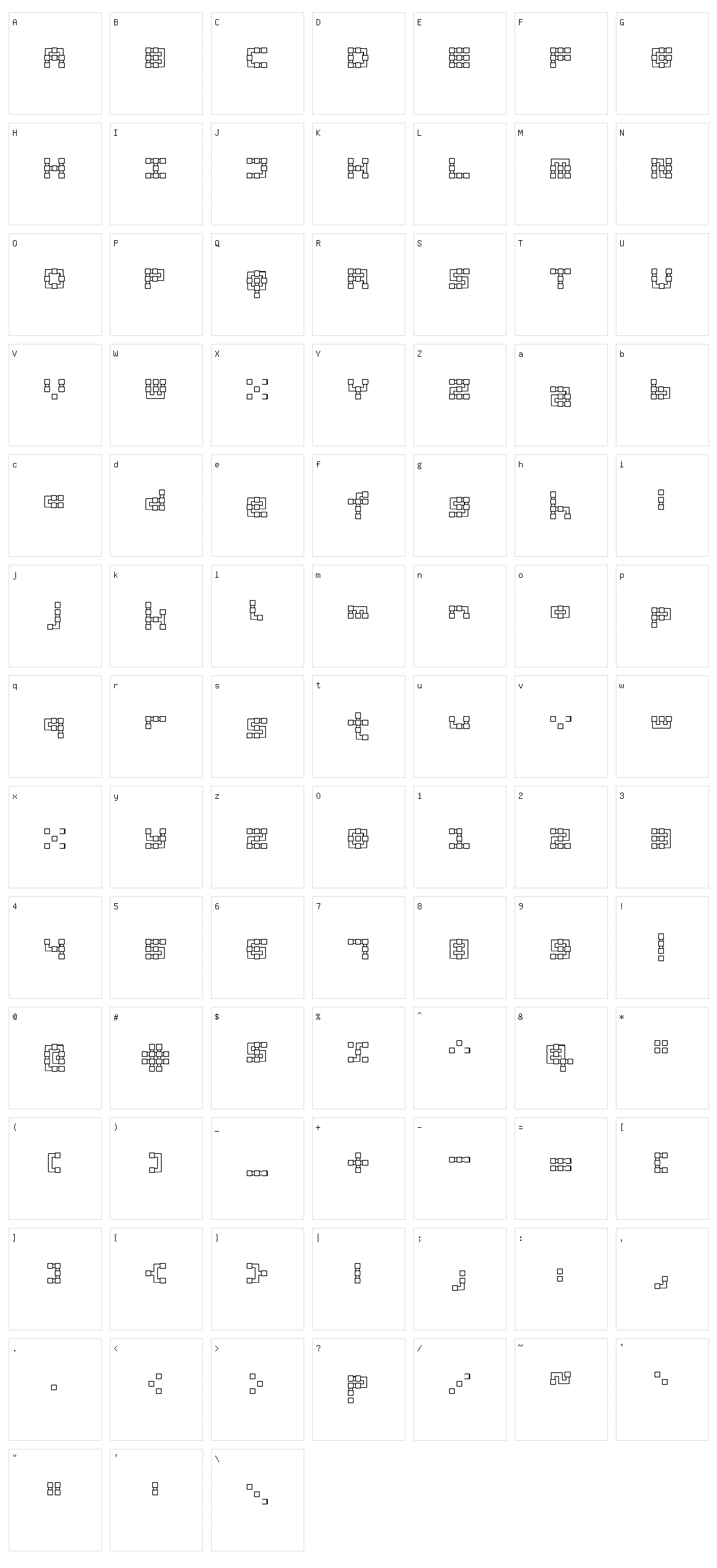
The free font PipeSquare Rounded is carefully designed by Nik Coughlin, showcasing a thoughtful balance of creativity and usability and falls under the Square font style. When you download the ZIP file, it contains only 15.42 KB of font files, making it lightweight and quick to download. Please review the license details below to understand permitted usage and distribution rights. If license information is not available, we recommend using this font for personal projects only or contacting the author directly for commercial usage permissions.